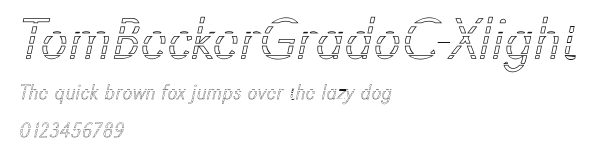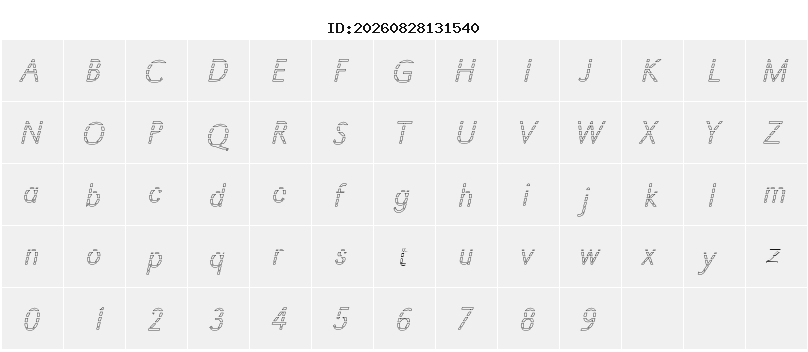
About TomBeckerGradoC-Xlight.ttf
TomBeckerGradoC-Xlight.ttf is a modern, elegant sans-serif font designed for ultimate readability and visual harmony. Perfect for branding, headlines, web design, and print materials.